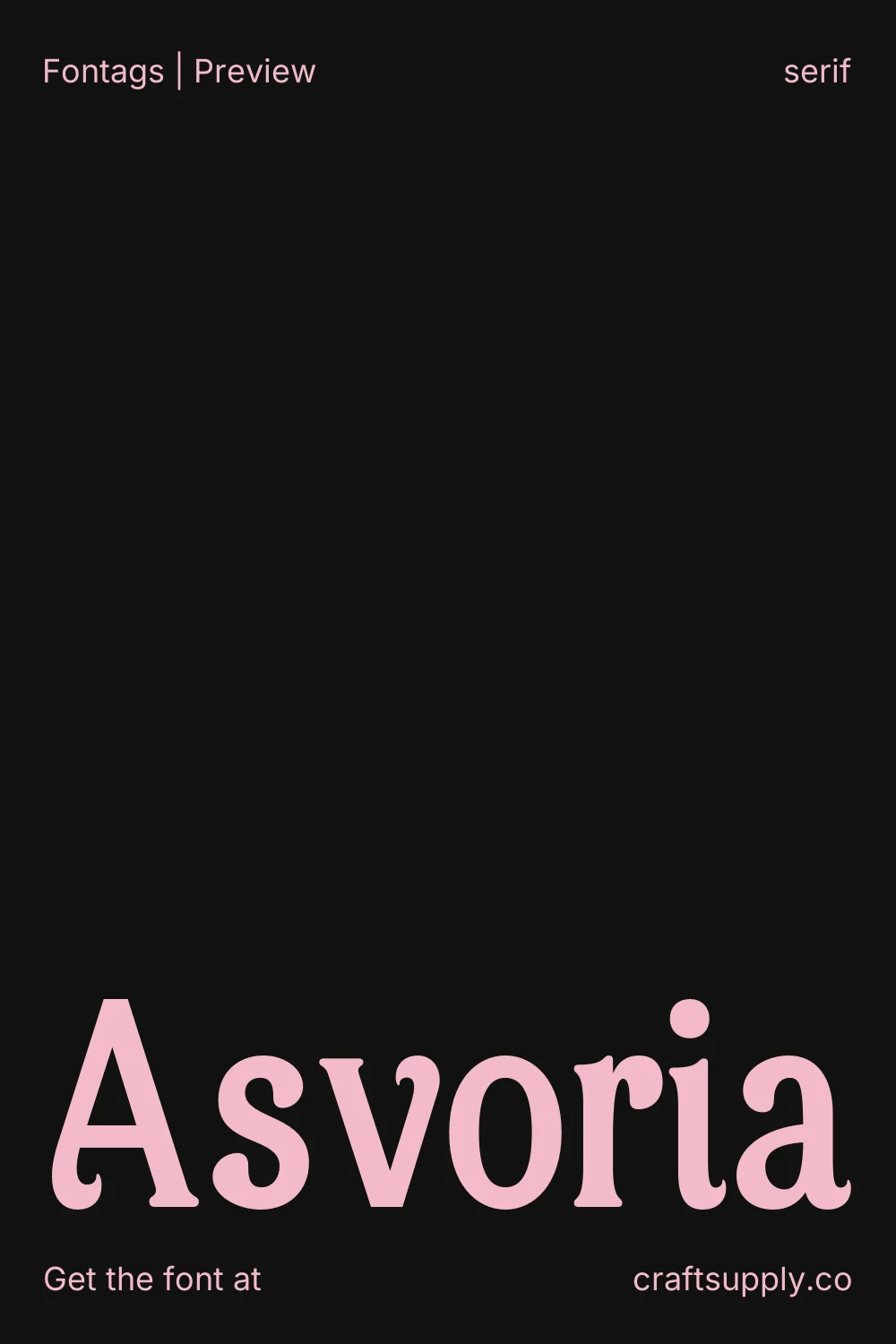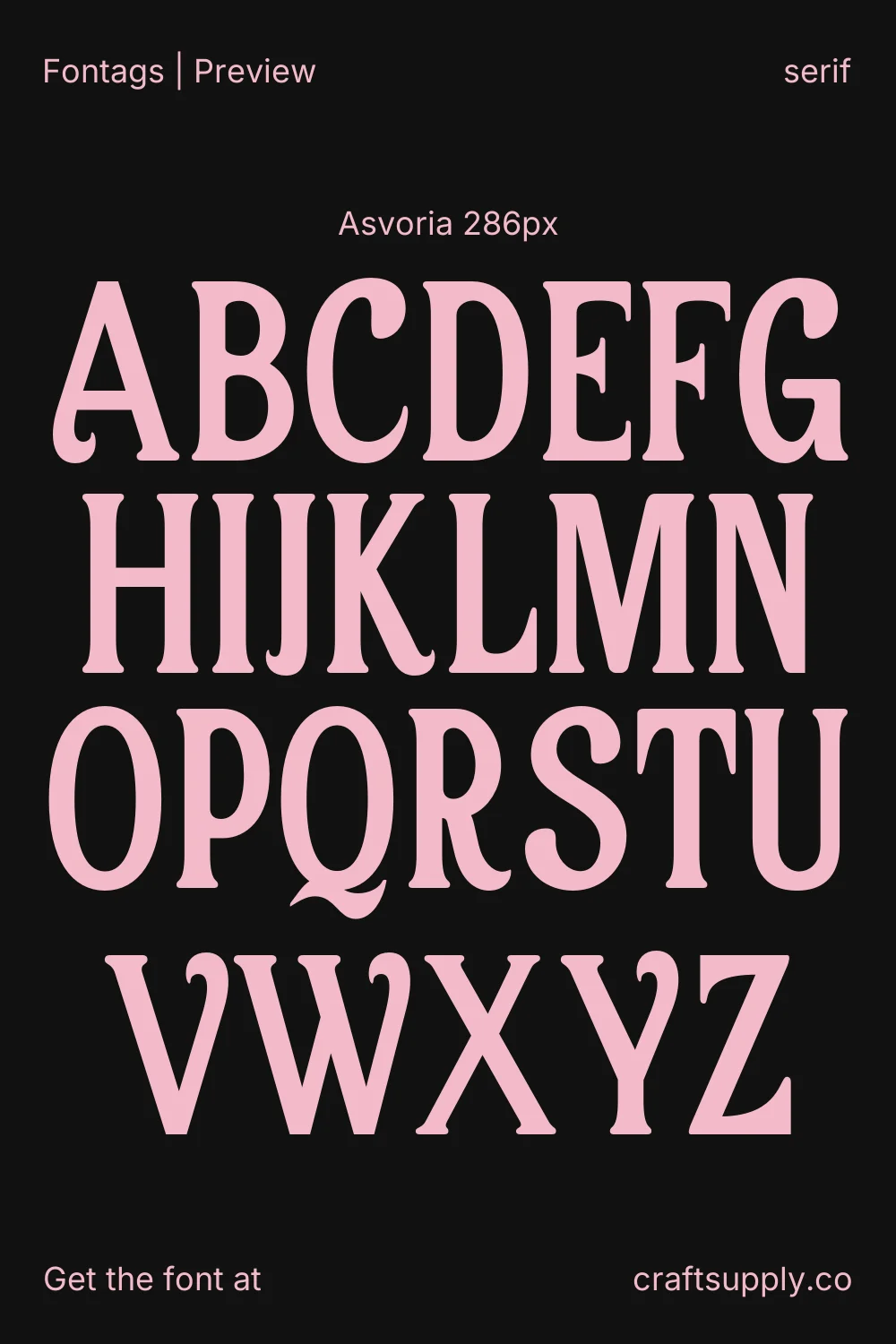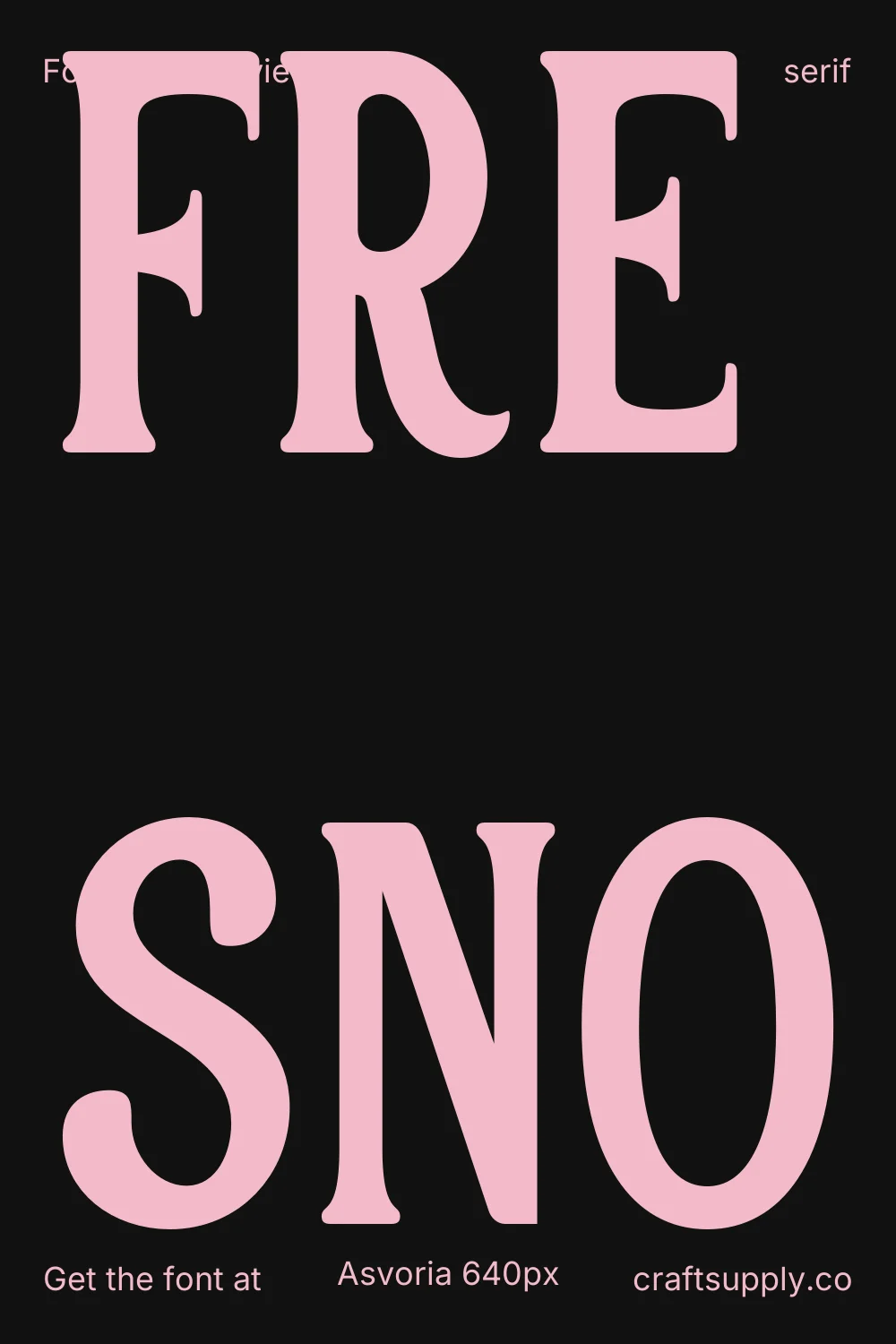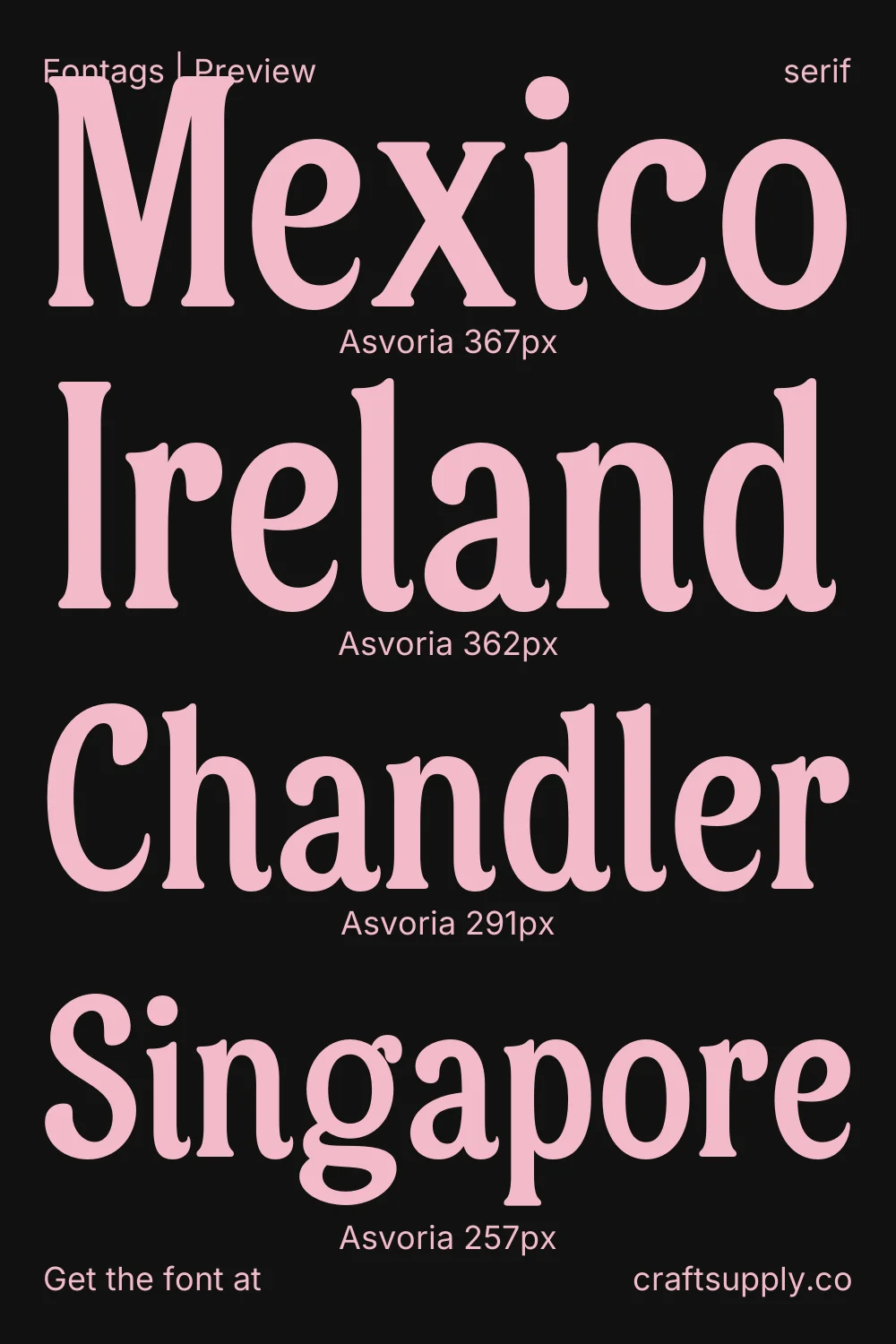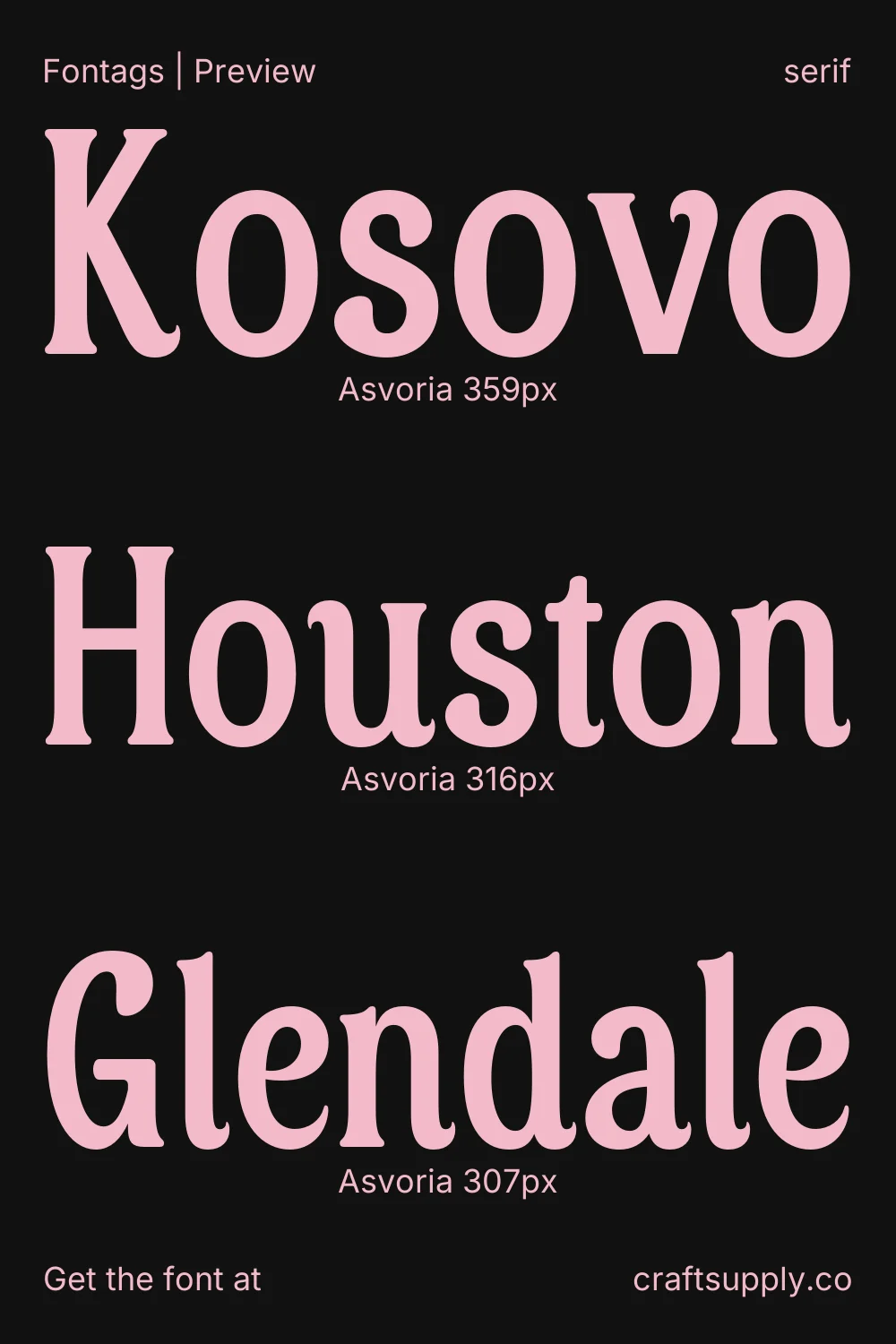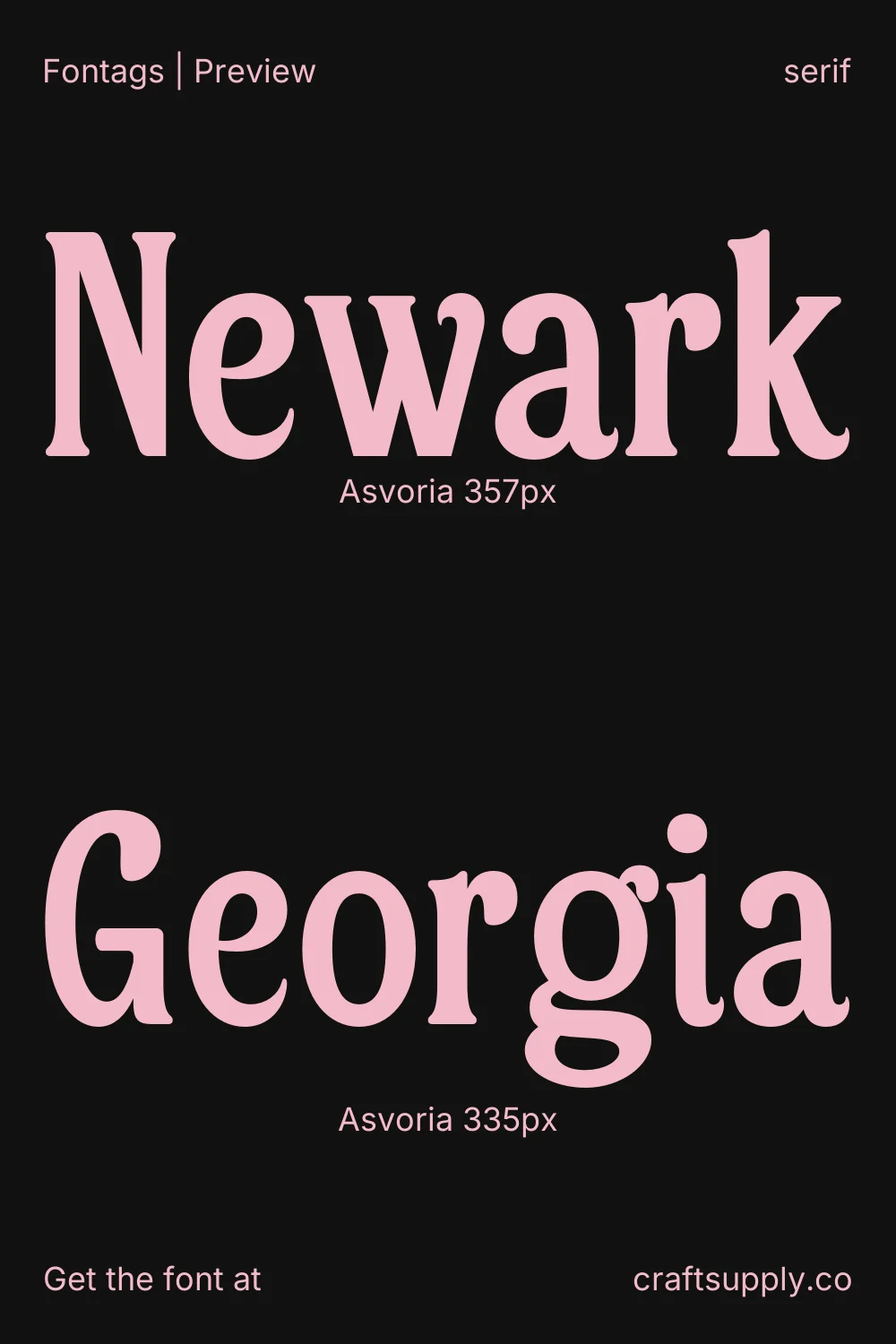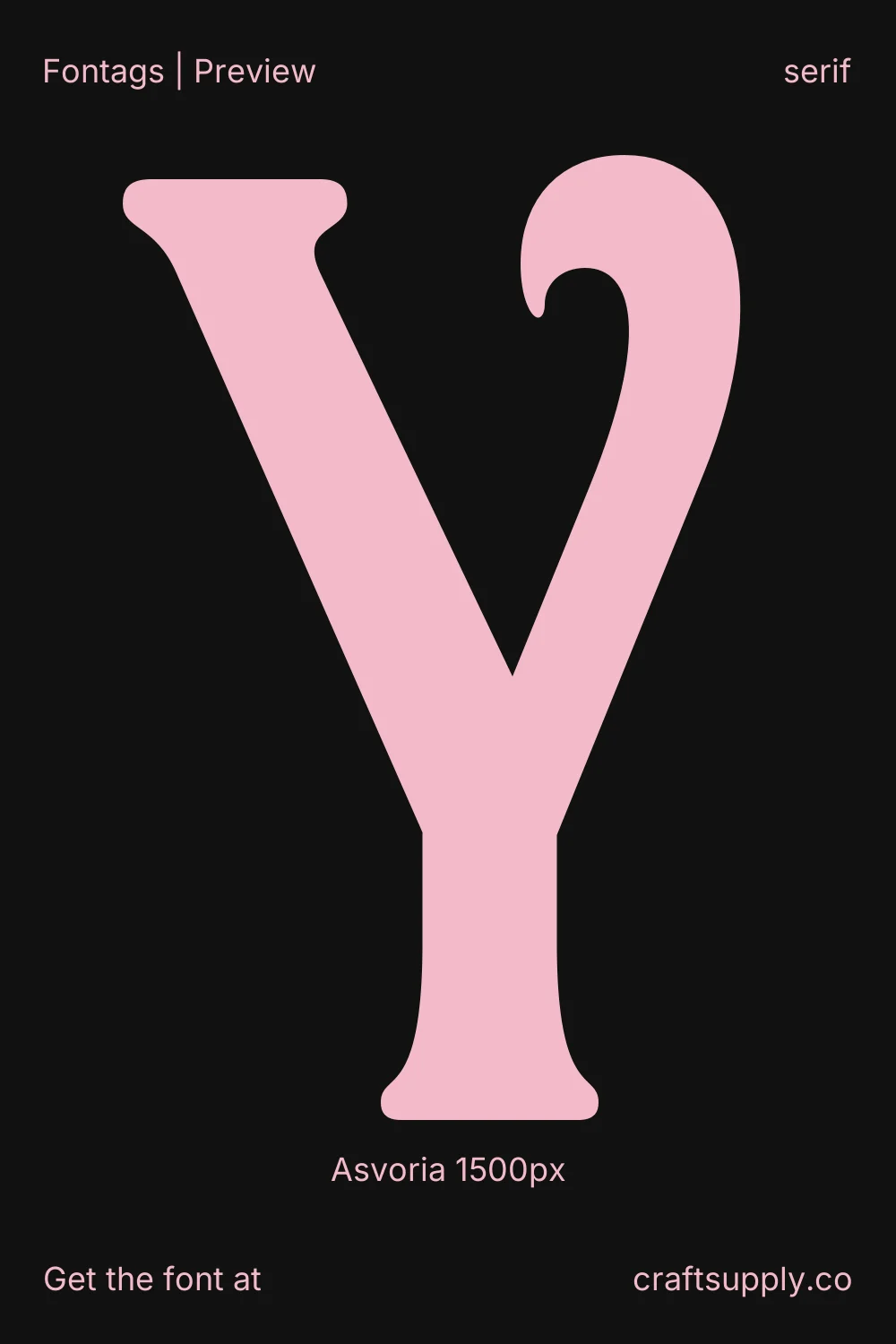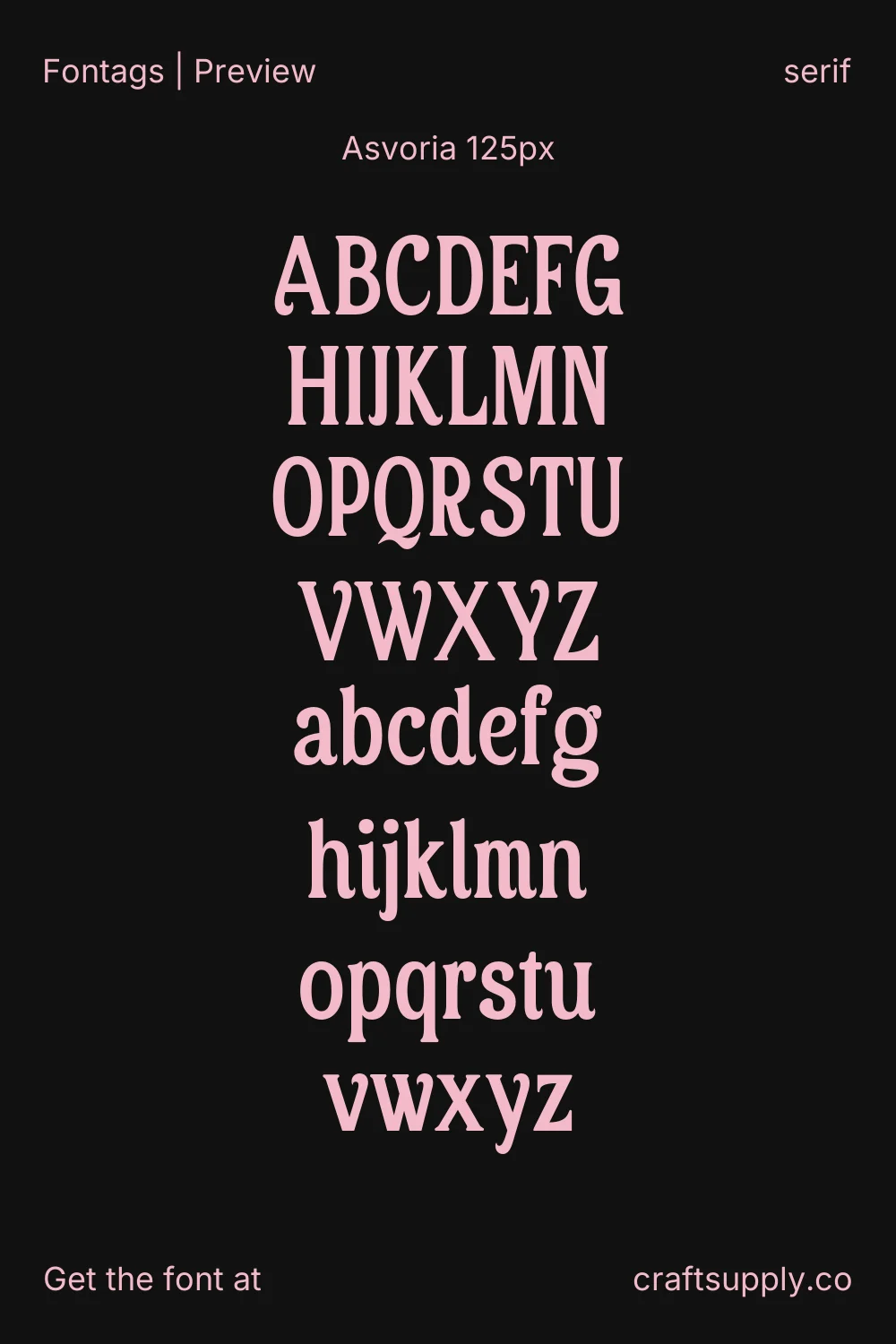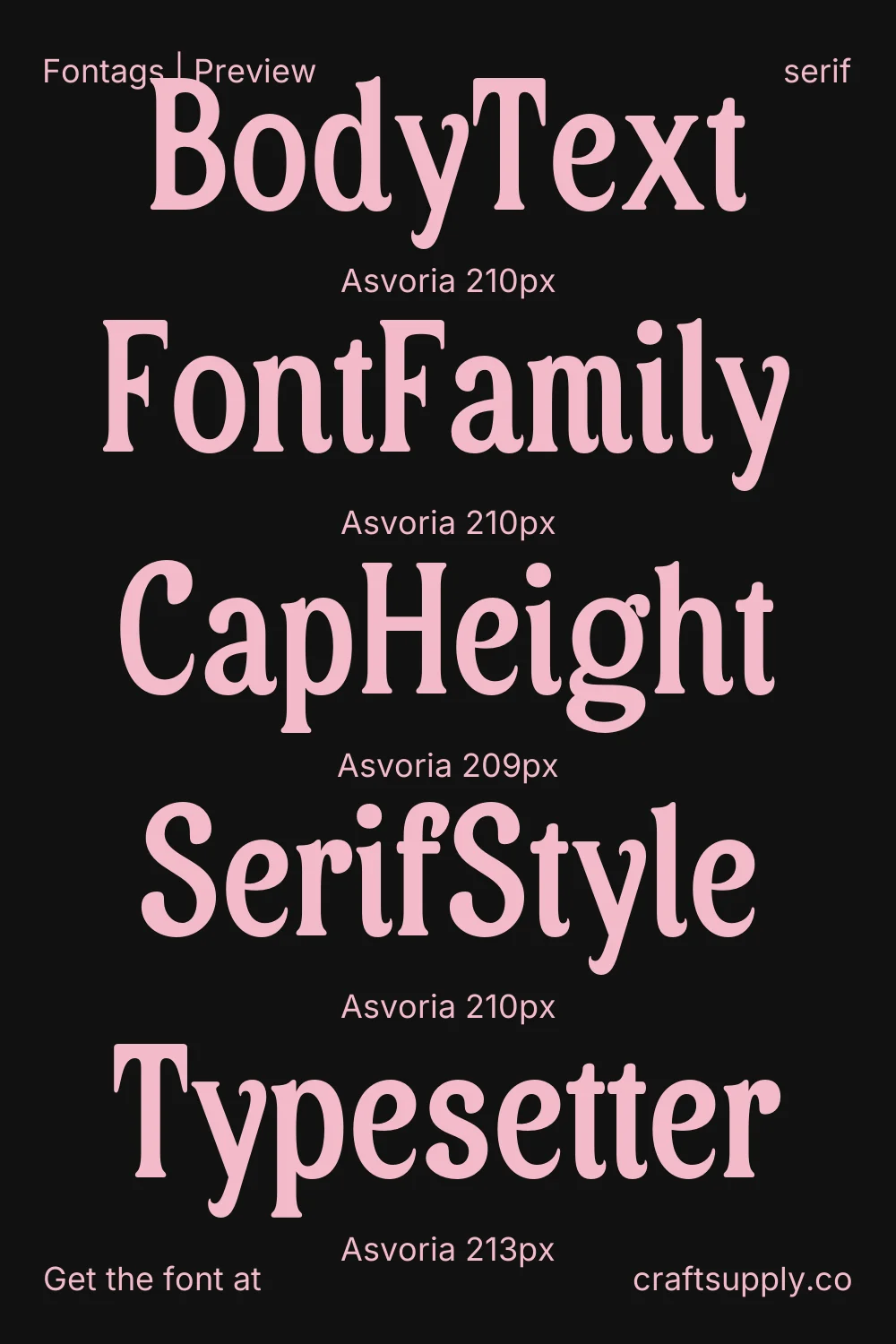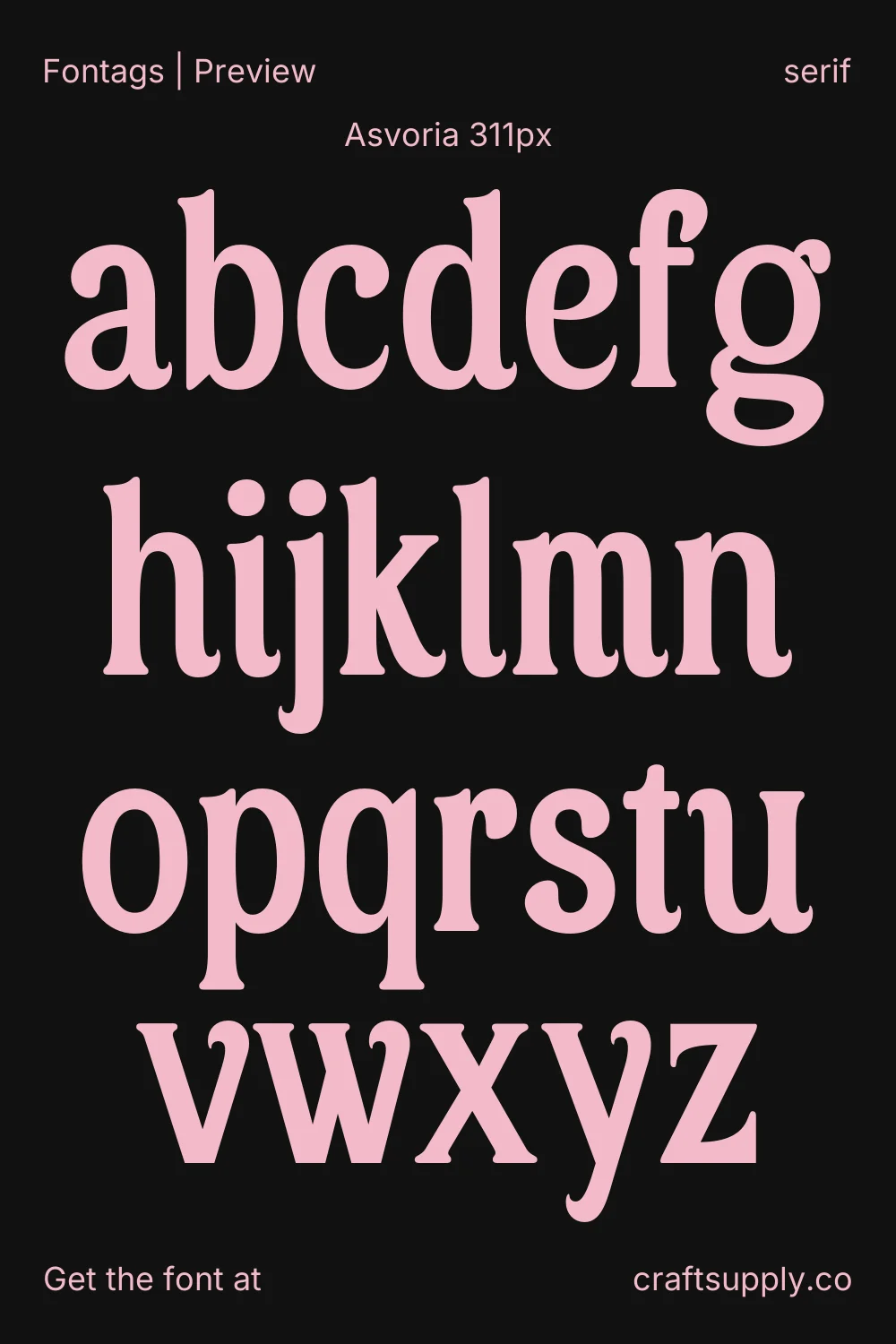
Asvoria
Asvoria is a stylish serif font with flowing, elegant serifs that bring sophistication to any design. Its versatile nature makes it suitable for editorial layouts, brand identities, and print or digital projects. With a timeless charm, Asvoria adds a touch of class and lasting impact.